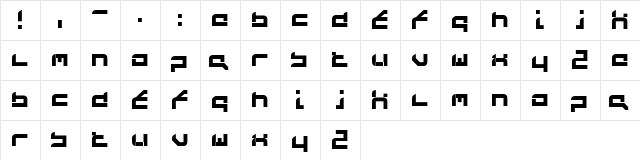
FutureFlash Regular
Design Context for FutureFlash Typeface
FutureFlash has a distinctly futuristic character, with geometric precision and clean angles that feel at home in technology, gaming, and sci-fi contexts.